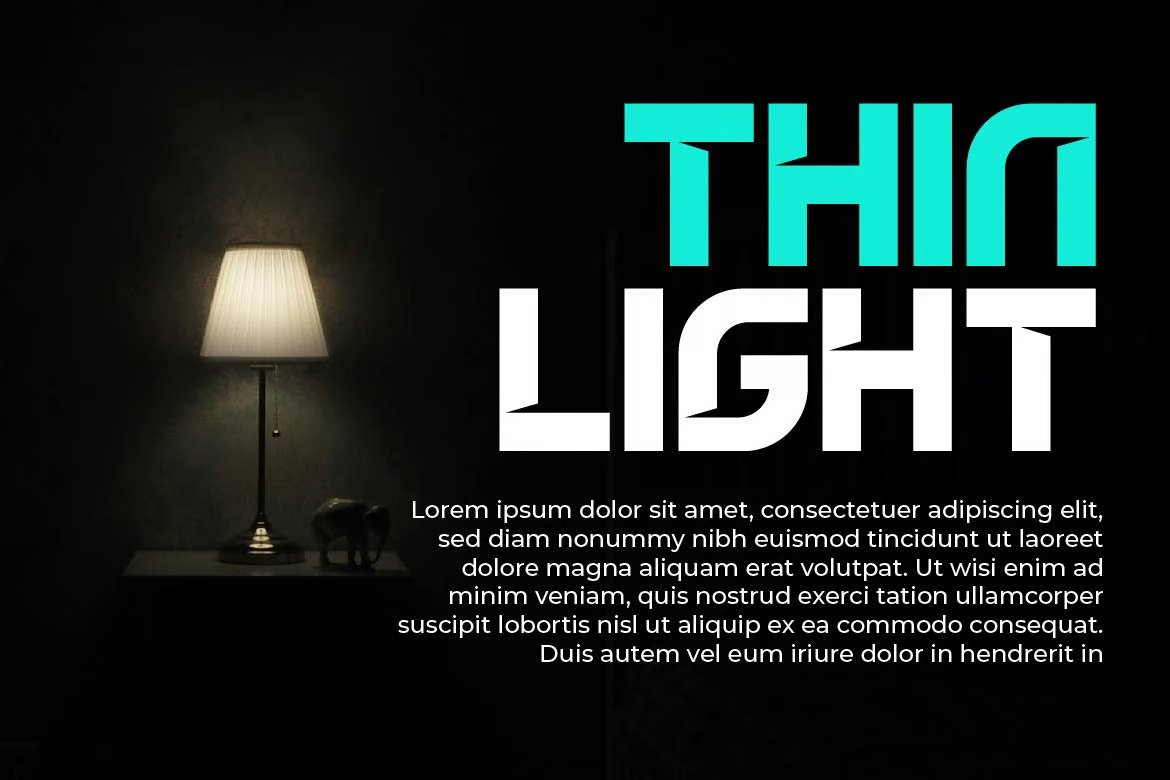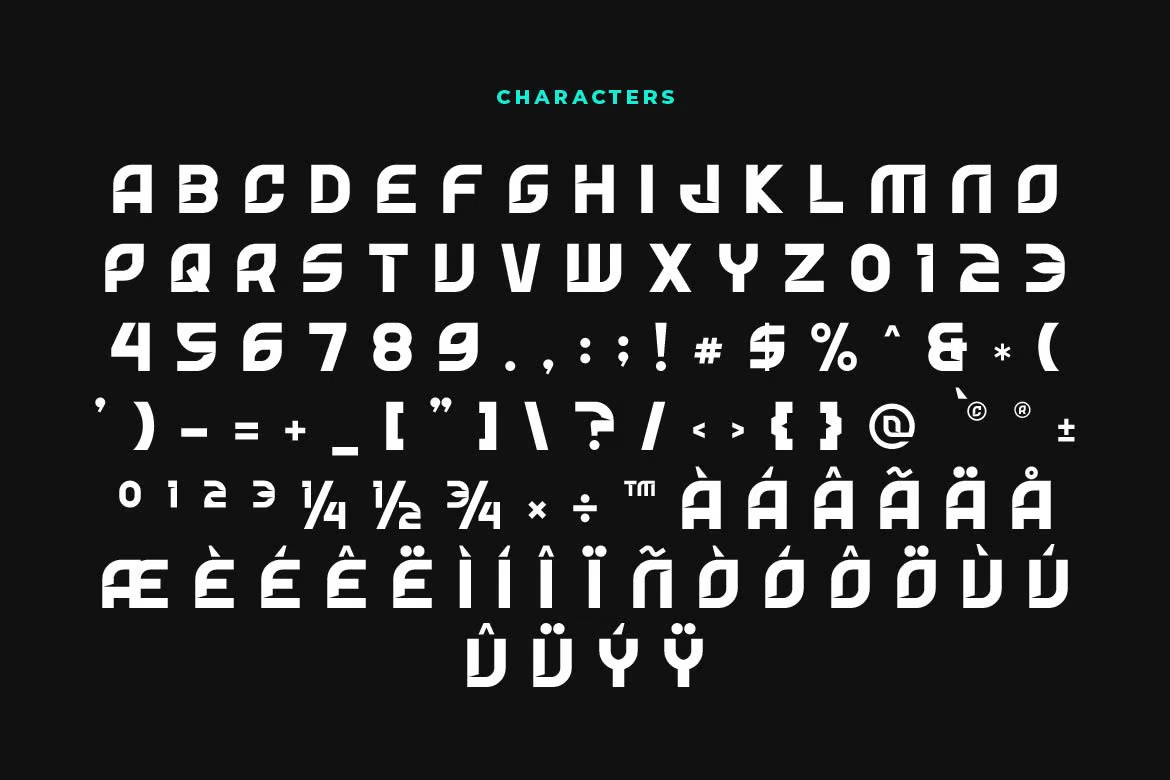
Helno Strong Bold Font
Helno Strong Bold is a striking and powerful typeface designed to make a bold statement. With its thick, confident letterforms and modern aesthetic, this font is perfect for eye-catching posters, engaging social media graphics, standout branding, and creative personal projects. Whether you’re designing headlines, promotional materials, or artistic layouts, Helno Strong Bold adds impact and personality to your work.
Helno Strong Sans-Serif Bold Font
Helno Strong Bold Font